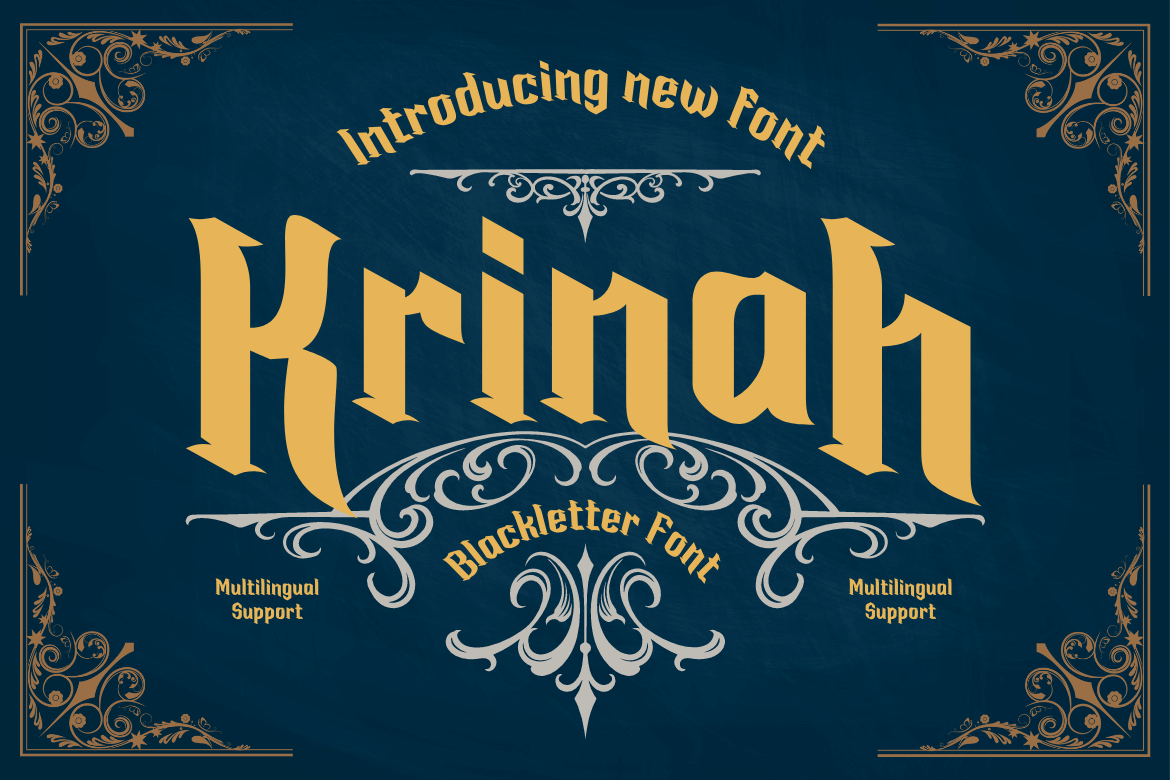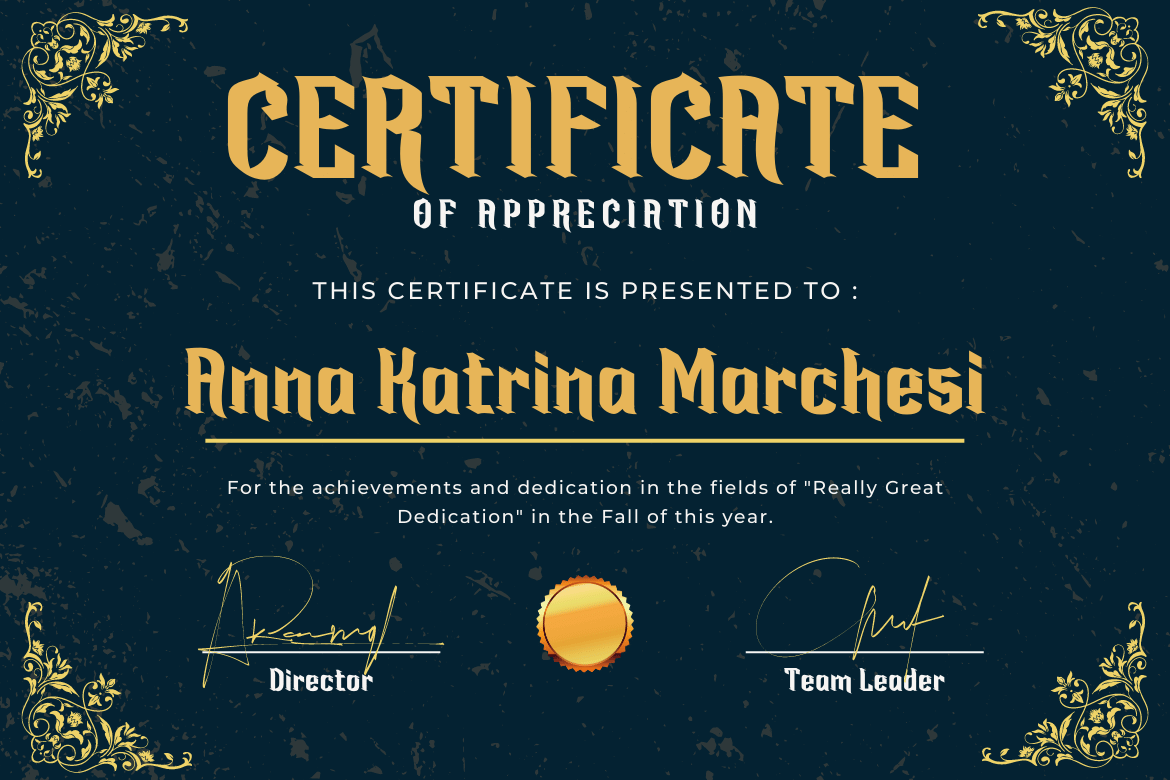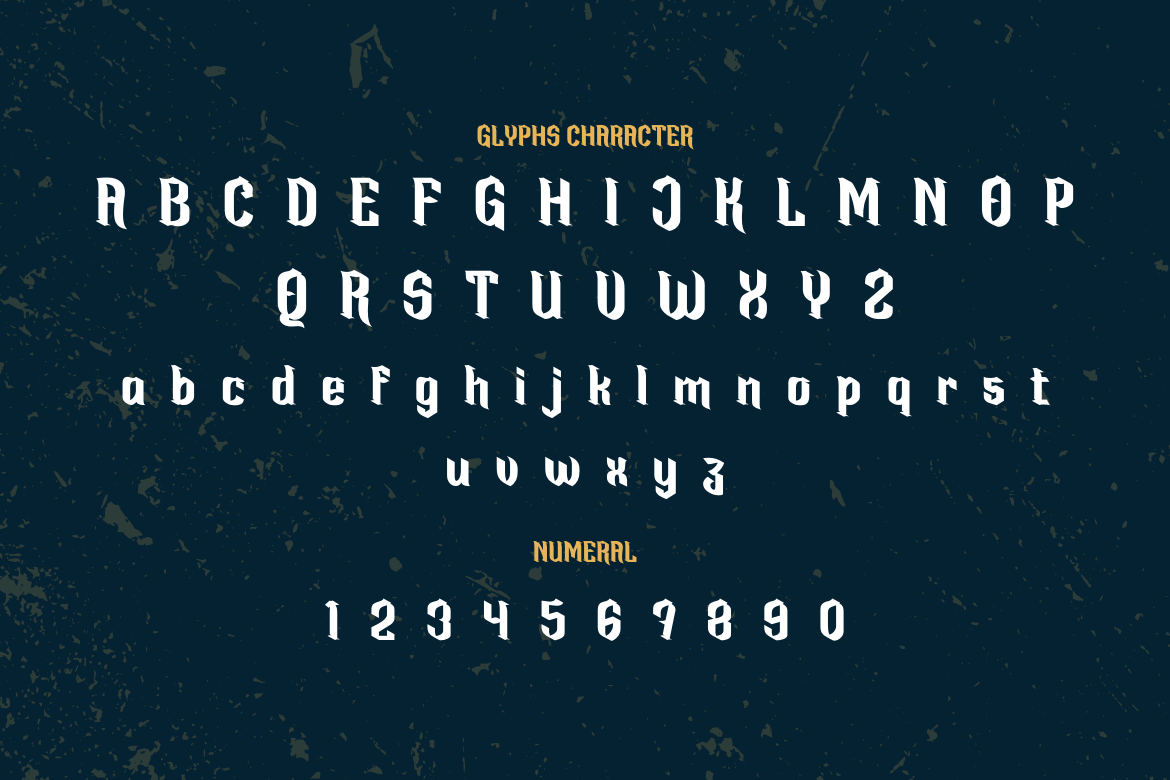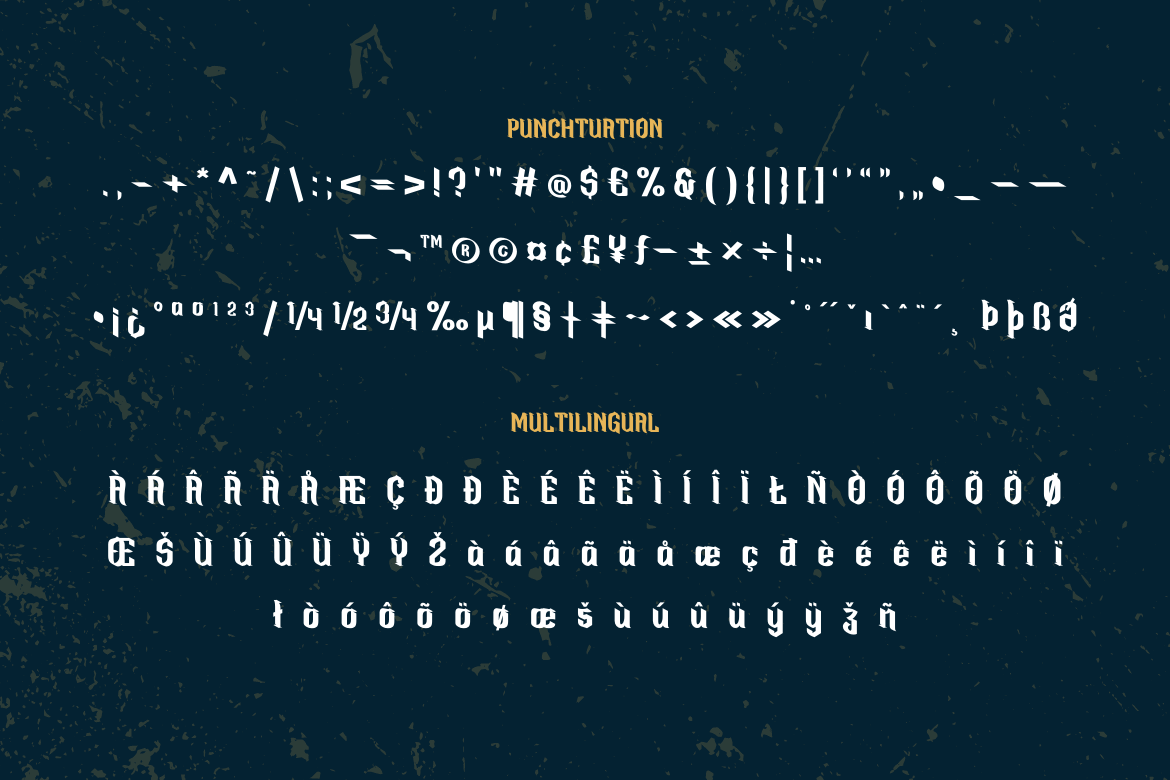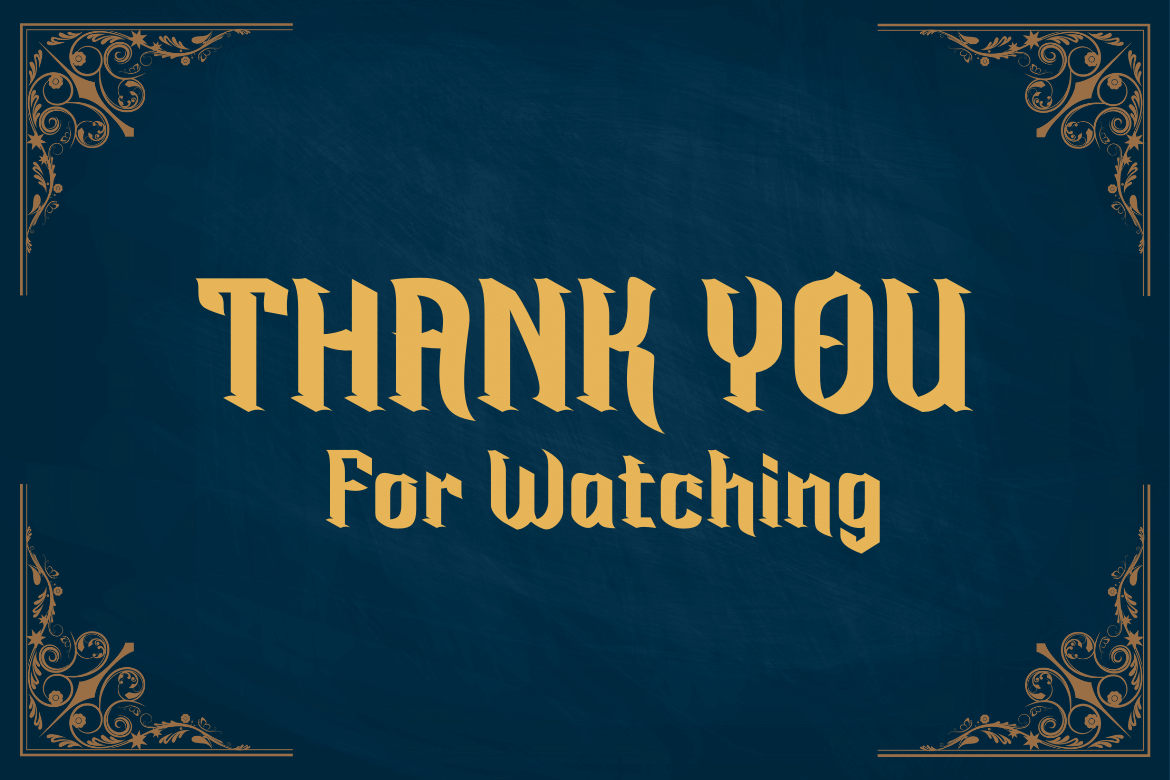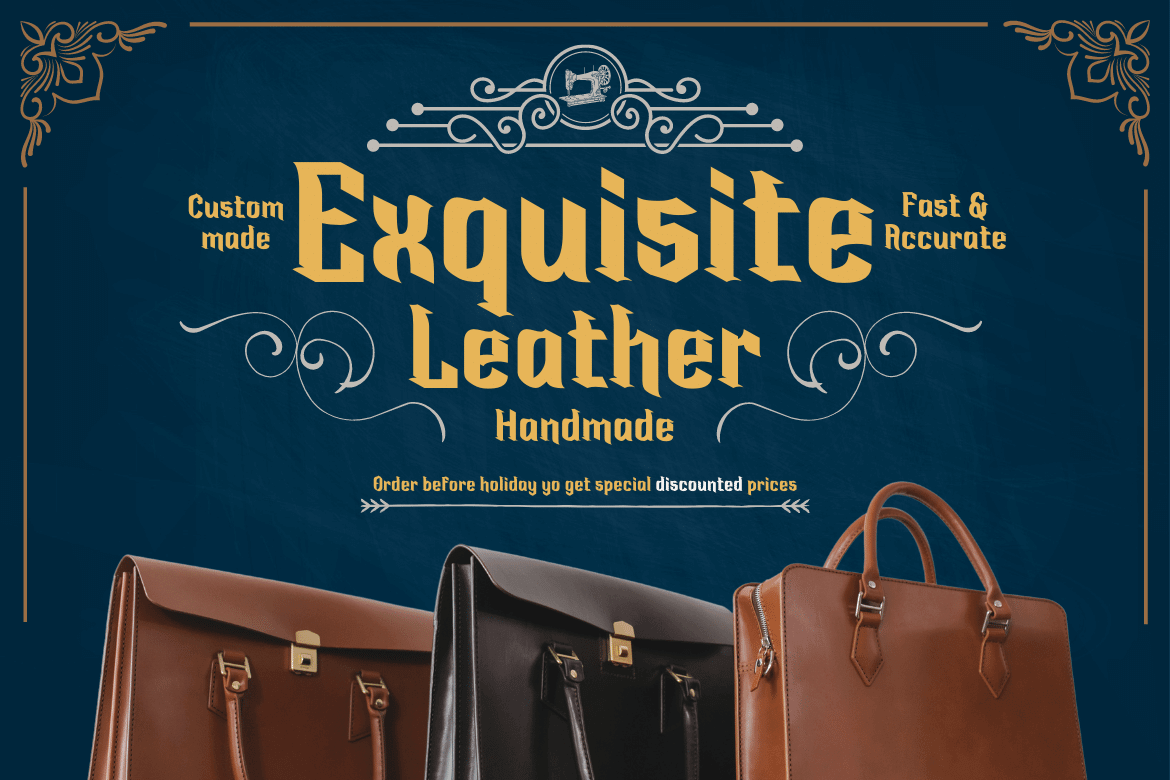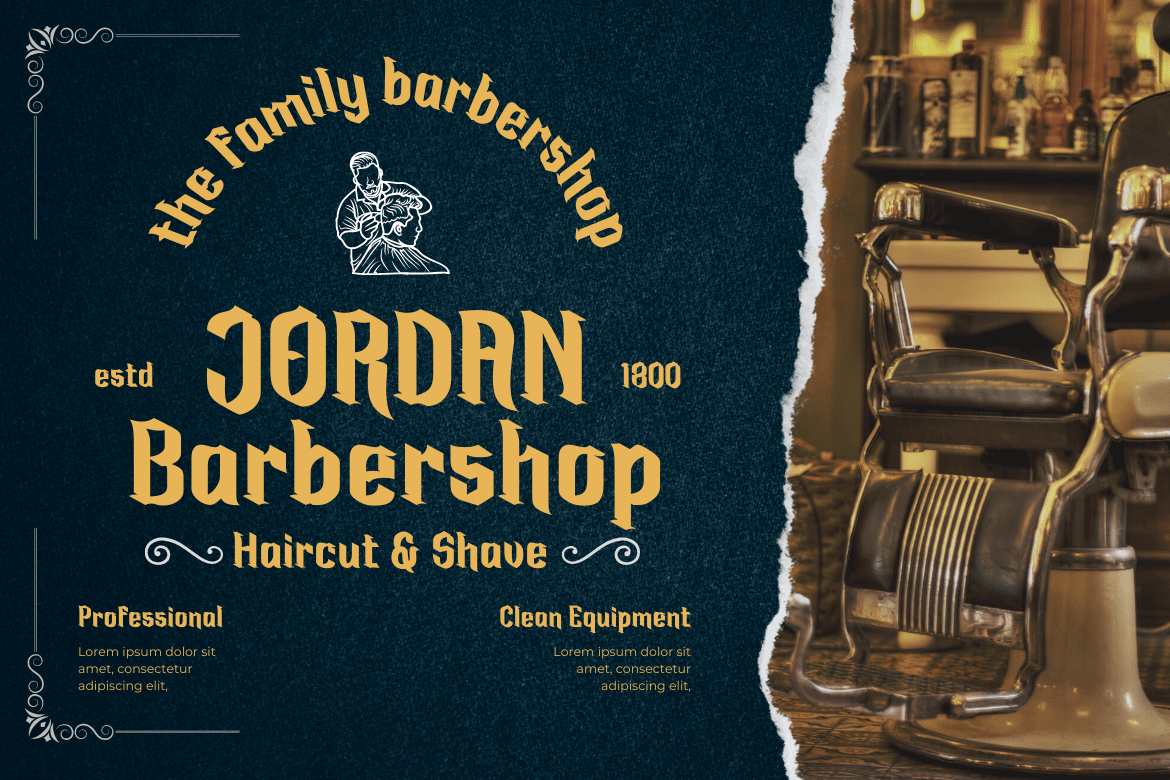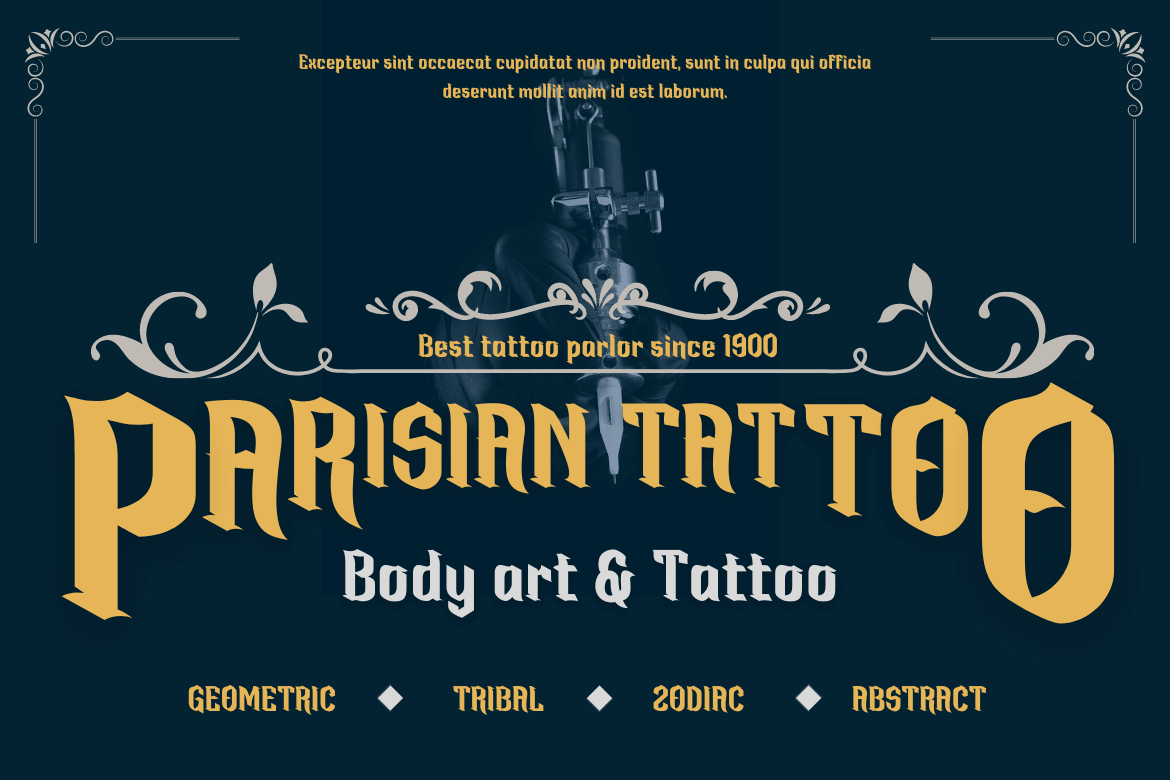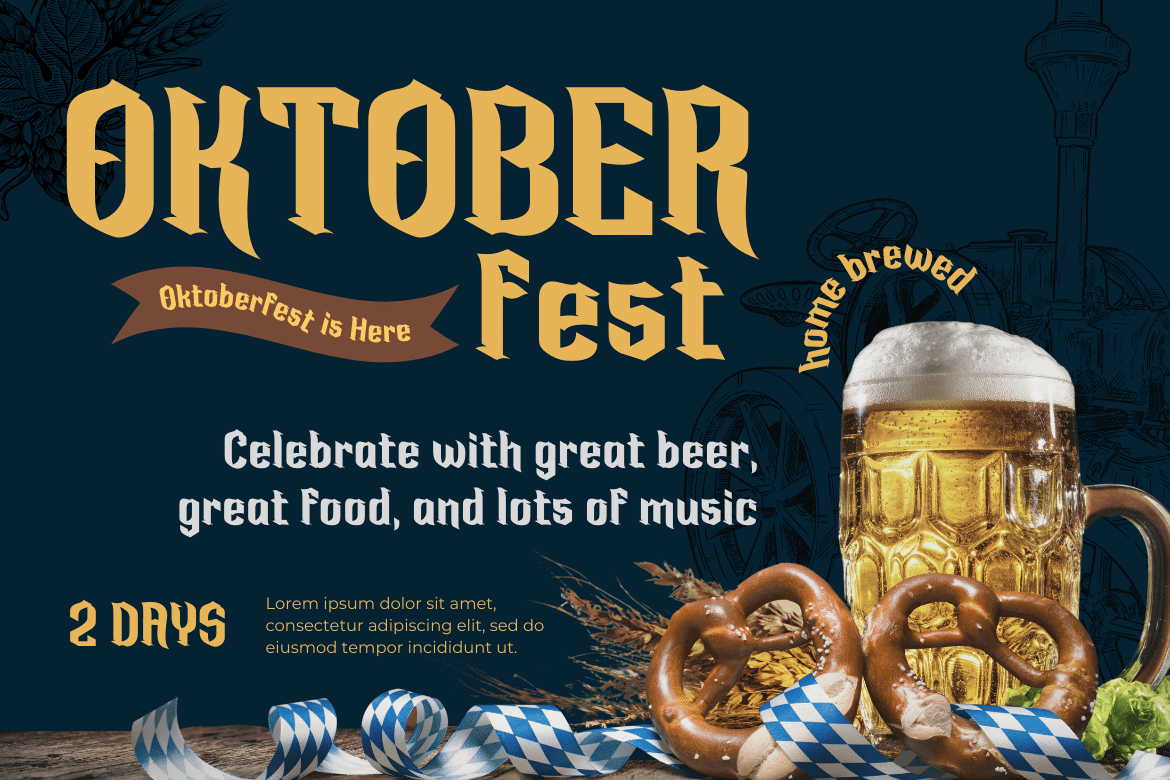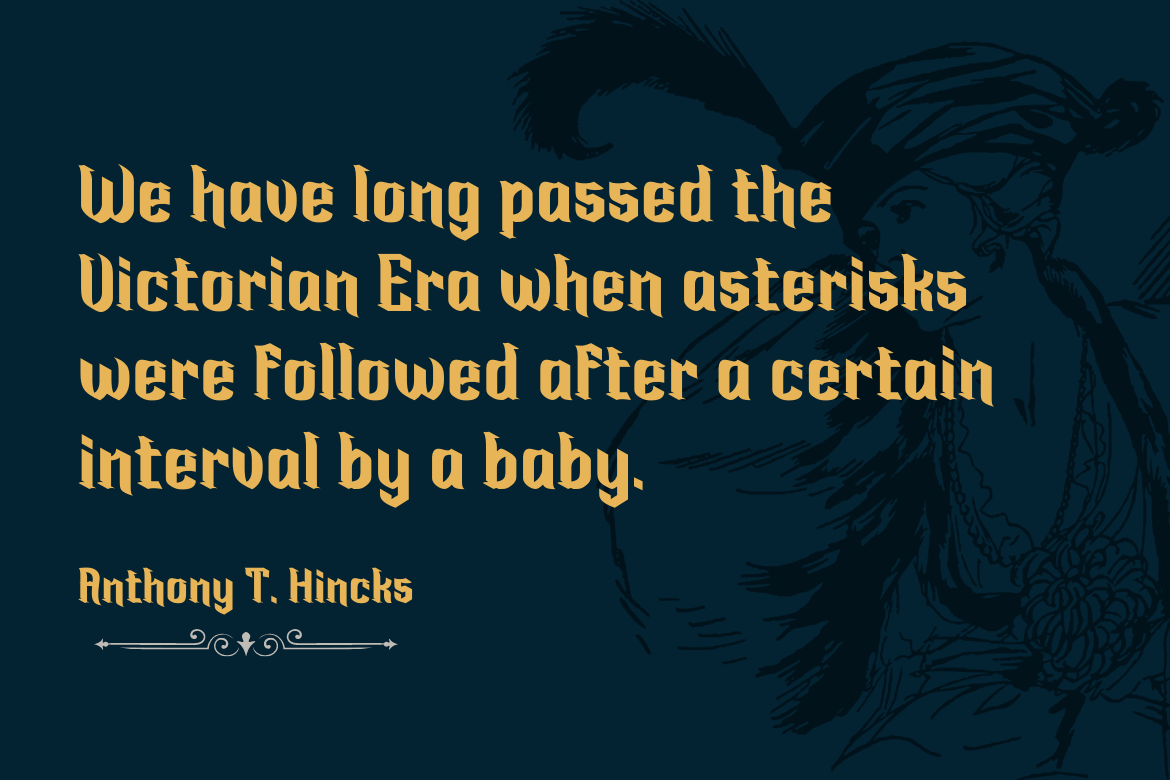
Krinah – Tatto Blackletter font
For any project that calls for a gothic touch, the Krinah font is ideal. Krinah Blackletter fonts are the way to go whether you’re looking for a font for your logo, label, badge, or your newest music video or movie!
Labels, vintage posters, and other items should all be designed using the professional-grade font Blackletter. It’s ideal for any project that calls for a little gothic flair. Additionally, it has a variety of lovely, harmonious forms, allowing you to choose the ideal word for your project.